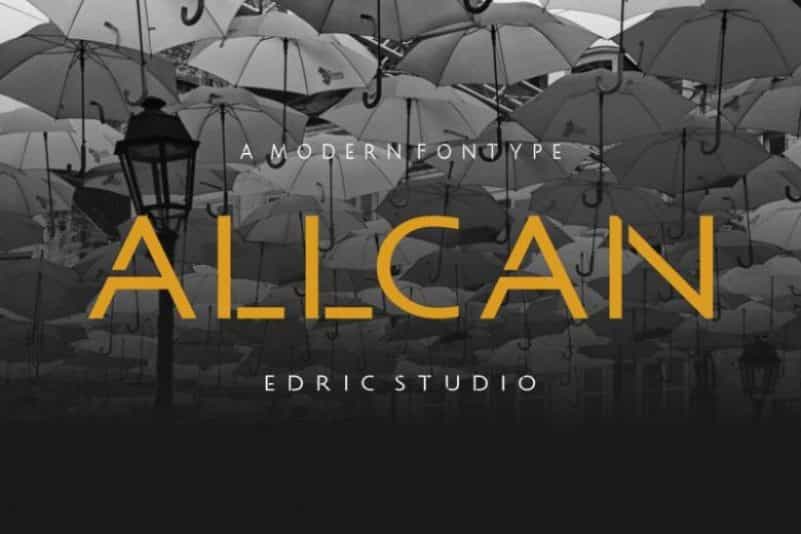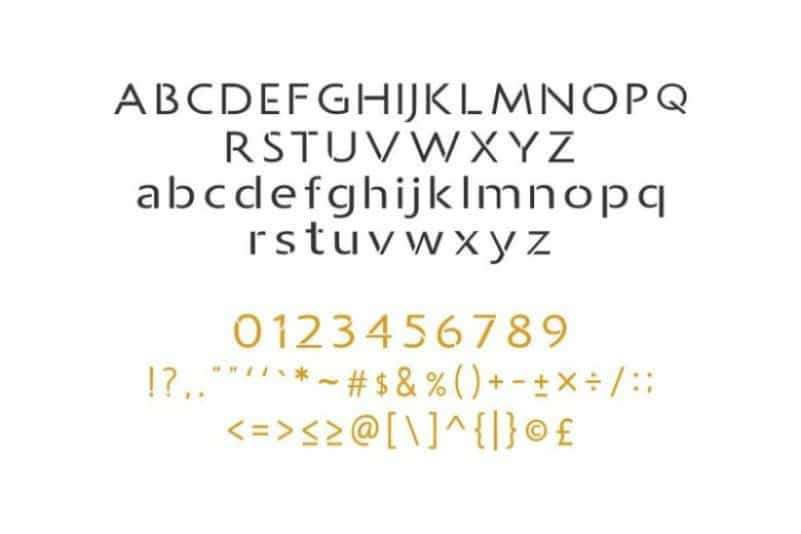
Discover Allcan Modern Font, part of the Sans Serif collection—a versatile and unique font perfect for adding a personal touch to your projects. Download it for free and enjoy crafting designs with style, from invitations to social media posts. This font is available exclusively for personal use, giving you the freedom to create without limits. Unlock your creativity with Allcan Modern Font today!
Introducing our newest font : Allcan Modern Font! This is a new type of a modern font. Ideal for branding, logo, stationery, business card, etc.